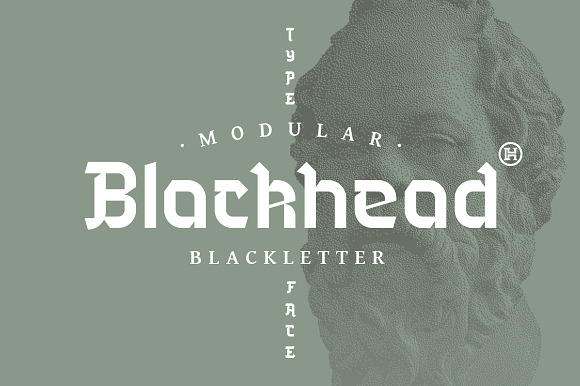
Blackhead Typeface | Font
This bold typeface is perfect for heavy metal bands, rock merchandise, extreme sports branding, tattoo studios, motorcycle culture, rebellious campaigns, underground venues, intense gaming graphics, and aggressive design applications.
What makes this font exciting is its brutal intensity combined with rebellious authenticity, offering designers an aggressive typeface that captures the raw power of underground culture while delivering uncompromising edge and hardcore visual dominance.
The Blackhead font family includes regular, bold, condensed, distressed, and extreme variations, providing complete hardcore design solutions for creating intense rebellious visual identities.
Whether you're developing underground music brands or crafting extreme lifestyle experiences, Blackhead Typeface Font Free Download brings exceptional hardcore atmosphere and rebellious authenticity to every application. This aggressive typeface combines heavy metal typography with contemporary underground design, creating letterforms that command respect and intimidate opposition. The font's brutal construction and rebellion-ready details make it perfect for brands seeking immediate hardcore recognition.
Blackhead Typeface Font features carefully crafted aggressive styling with authentic underground character that conveys genuine rebellious expertise. Each character has been designed for maximum visual impact and intimidation, with heavy proportions and extreme elements that enhance the hardcore aesthetic. The font's rebellious qualities make it particularly effective for music venues and extreme applications.
Professional designers choose Blackhead Typeface Font for projects requiring authentic hardcore credibility and rebellious atmosphere. Its underground heritage makes it exceptionally well-suited for metal bands, extreme sports companies, and rebellious lifestyle brands. The font's versatile aggressive variations allow designers to control the hardcore intensity, from subtle rebellious elegance to full extreme domination.
The complete Blackhead Typeface Font package offers extensive hardcore ornaments and rebellious decorative elements that enhance the aggressive aesthetic. Advanced extreme features allow designers to create complex hardcore effects with multiple underground-inspired options. This comprehensive rebellious toolkit ensures authentic results whether you're creating band merchandise, extreme sports materials, or transformative branded experiences that project absolute rebellion and uncompromising hardcore authenticity.